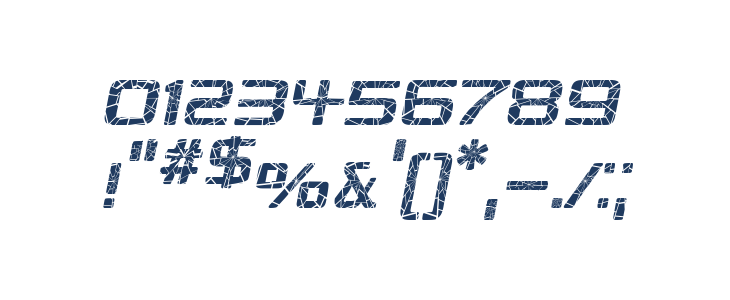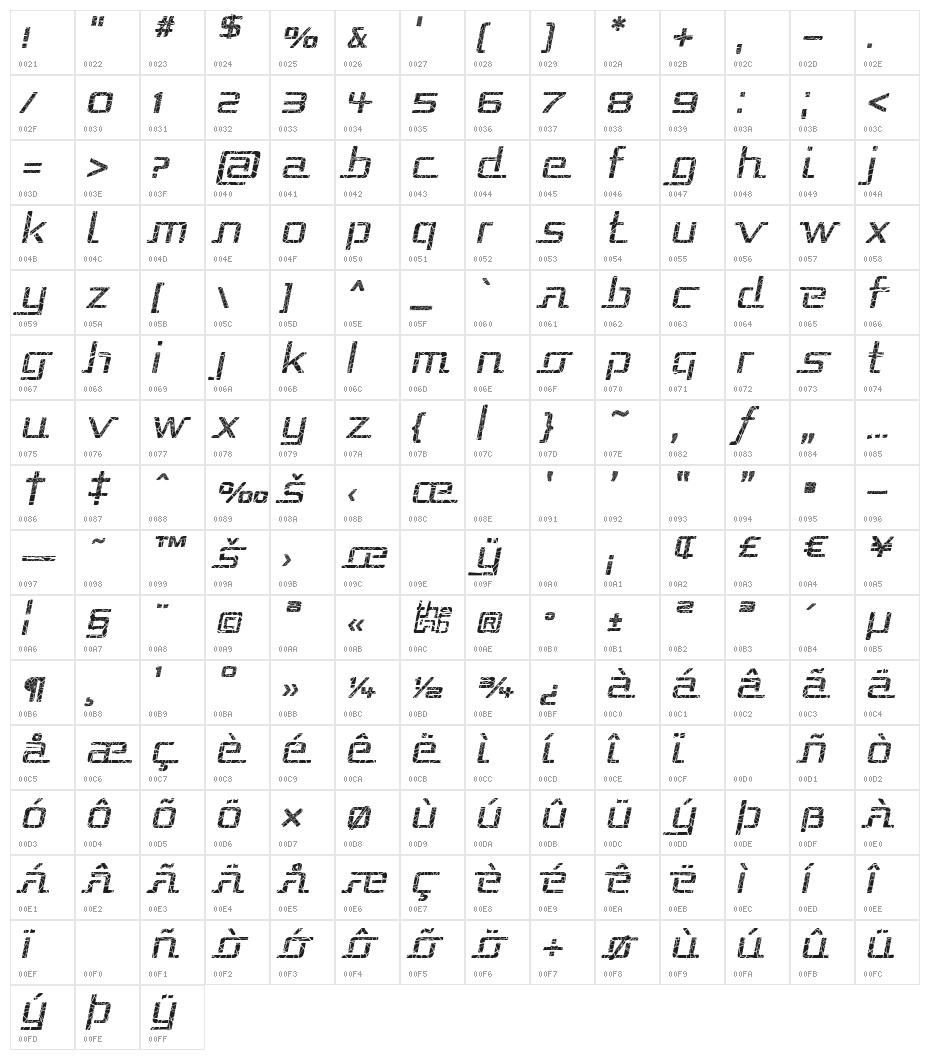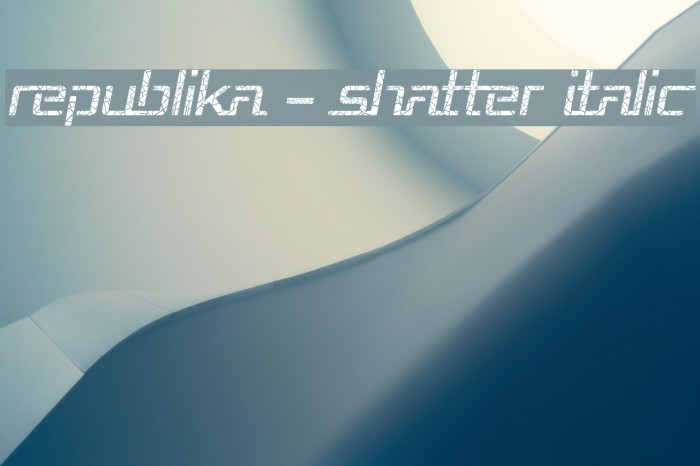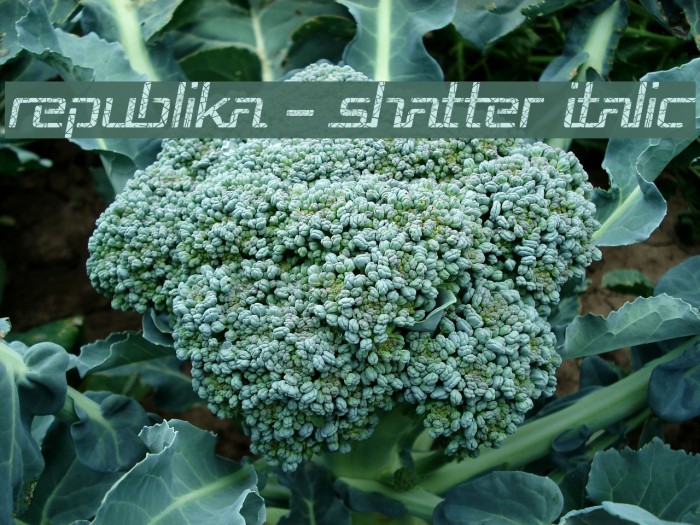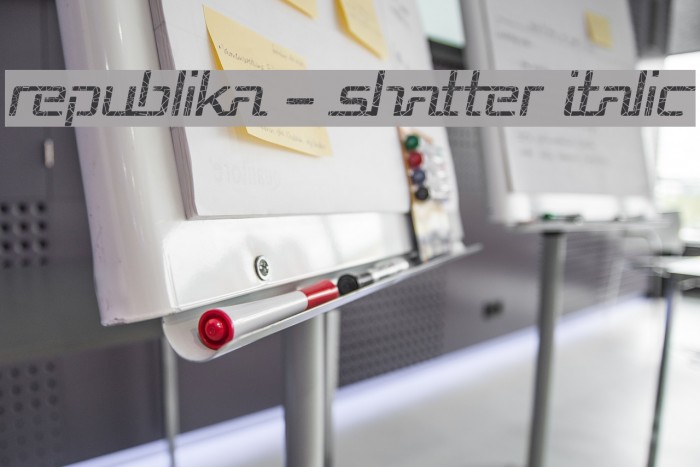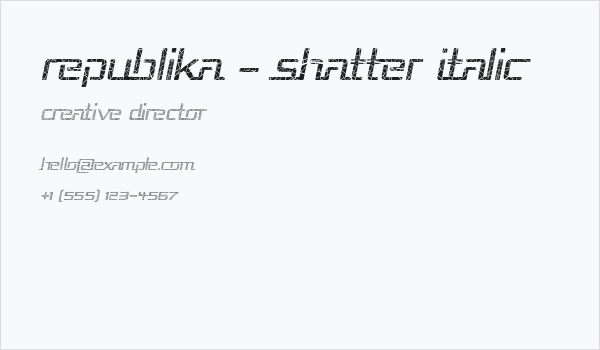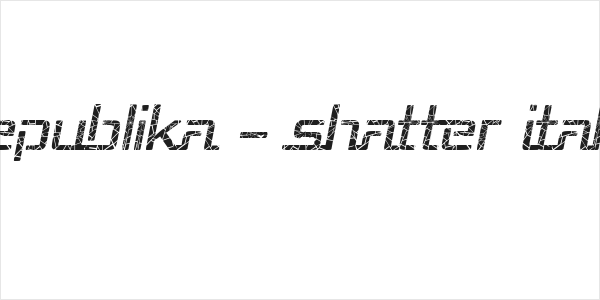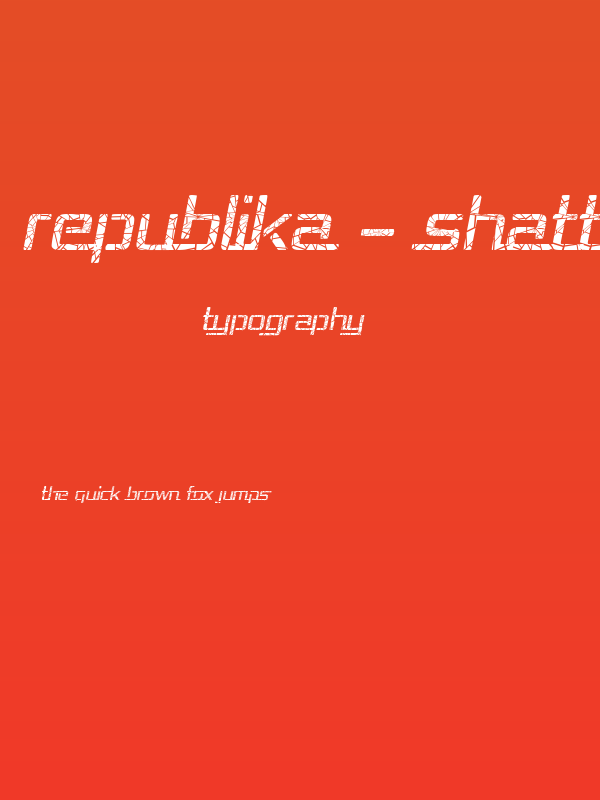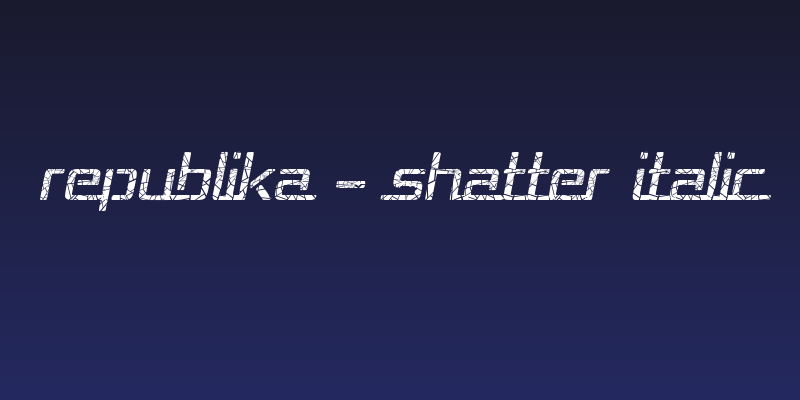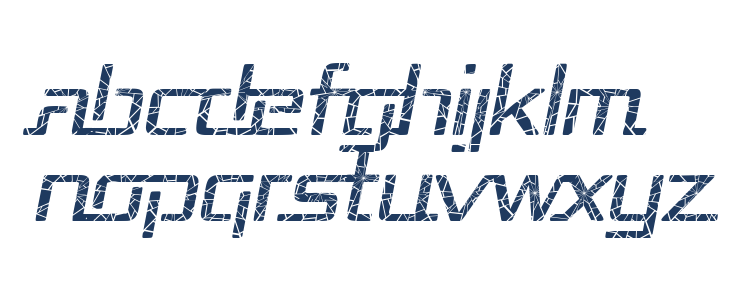
Republika - Shatter Italic Font
Republika - Shatter Italic Description
This font features a unique shattered effect, giving each character a fragmented, dynamic appearance. The italicized style adds a sense of motion and urgency, making it stand out in any design. The characters are constructed with a geometric precision, yet the shattered texture introduces an element of chaos and creativity. This combination of structure and fragmentation makes it ideal for projects that require a bold, modern aesthetic. The font maintains legibility despite its intricate design, ensuring that it can be used effectively in various contexts.
| Proposed Projects | Ideal for edgy branding, music album covers, event posters, and digital art projects. |